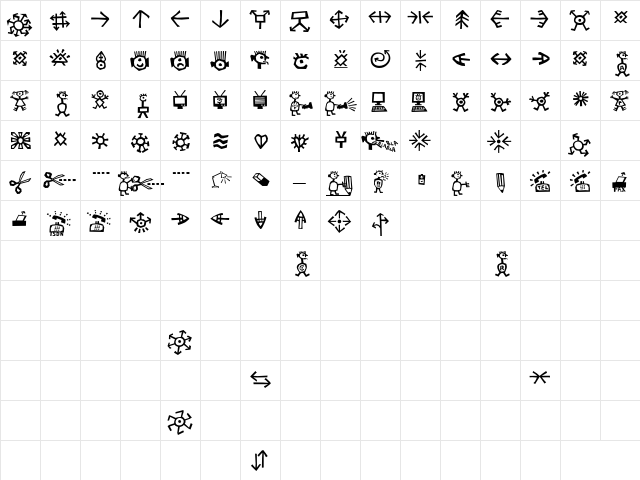
ForchettaFigure Regular
Design Context for ForchettaFigure Typeface
ForchettaFigure is a composed and adaptable typeface that performs quietly and consistently across a wide range of design contexts.